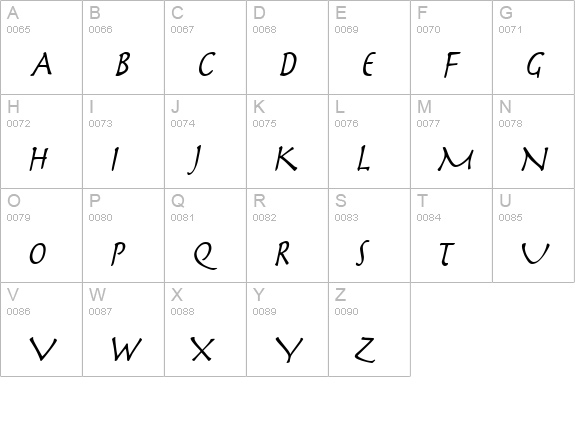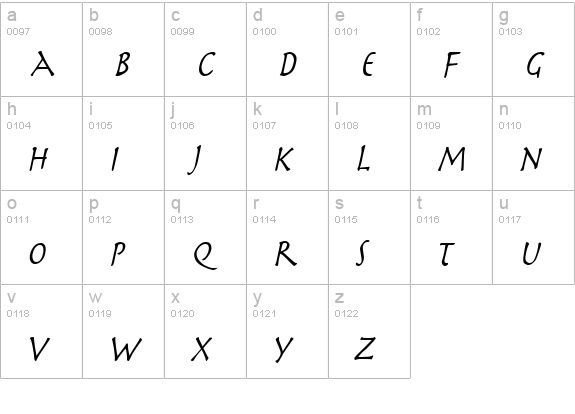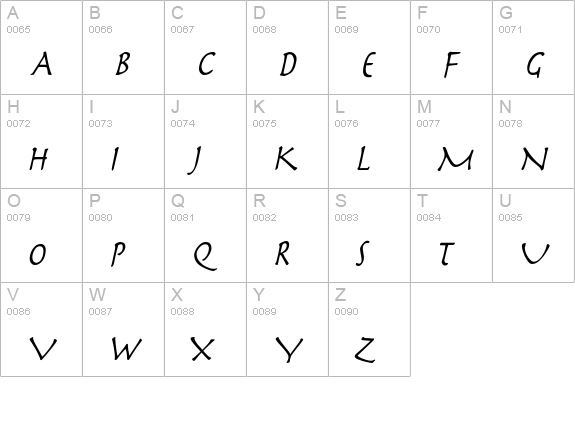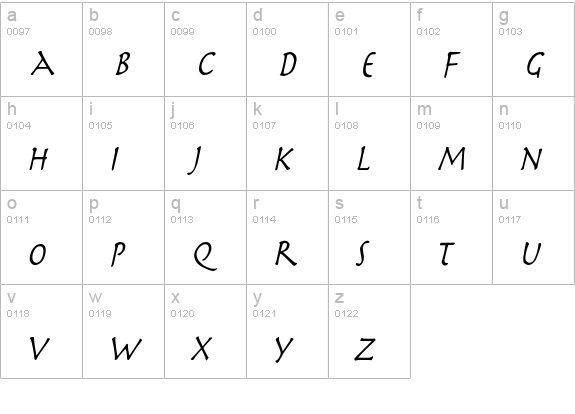
Mythology Condensed Italic is a distinctive, condensed-width, italic variant in the Mythology typeface family \xE2\x80\x94 well suited to design and typography projects.
Introducing Mythology Condensed Italic font - a captivating and mystical typeface that embodies the essence of ancient myths and legends. With its sleek and elegant design, this font is perfect for adding a touch of intrigue and sophistication to your projects. Mythology Condensed Italic font features a unique italicized style that exudes a sense of movement and fluidity, making it ideal for conveying a sense of mystery and drama. Whether you're designing a poster, logo, or branding materials, this font is sure to make a bold statement. Best of all, Mythology Condensed Italic font is completely free to download at FontsMarket.com. So, unleash your creativity and dive into the world of myths and legends with this stunning typeface. Let your imagination run wild and bring your designs to life with Mythology Condensed Italic font.